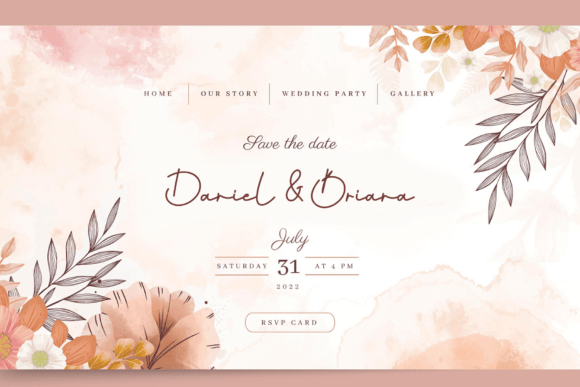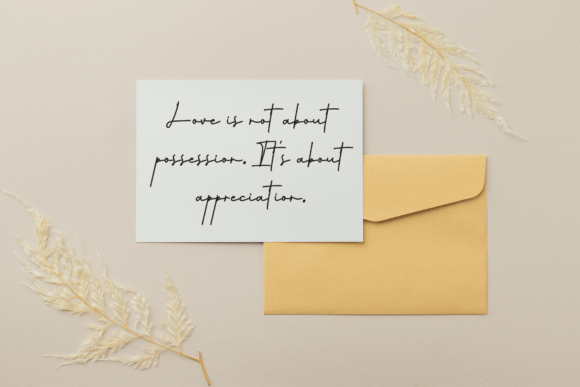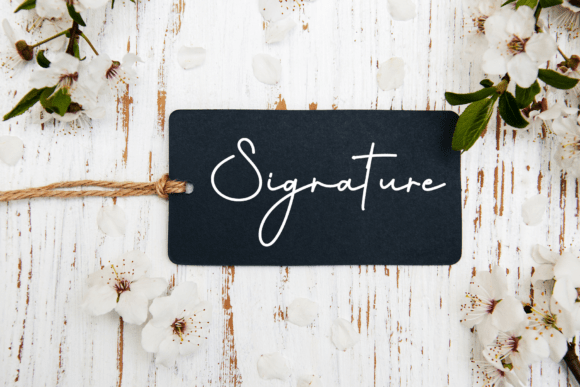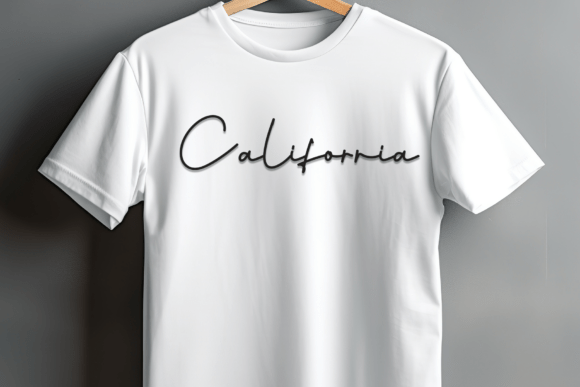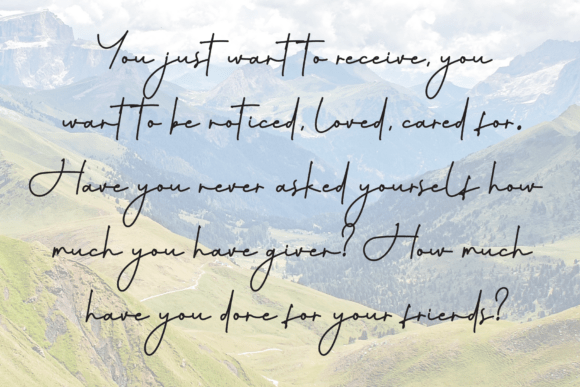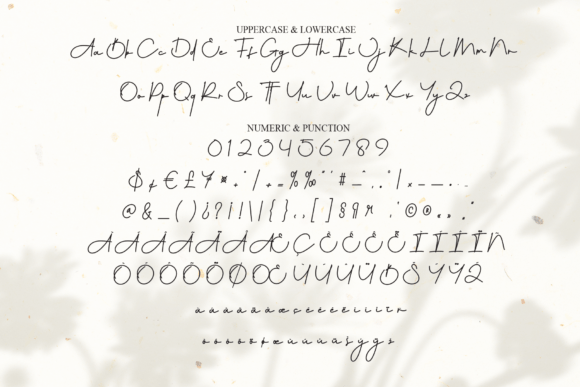
Introducing Angelina Font: The Epitome of Elegance and Sophistication
In the world of typography, few fonts manage to convey the essence of modern calligraphy as effortlessly as Angelina. This sleek and graceful handwritten script font is a masterpiece of design, boasting flowing lines, long elegant strokes, and a signature-style underline that exudes sophistication and charm. Whether you’re a designer looking to elevate your branding, a crafter seeking to add a touch of refinement to your wedding stationery, or simply someone who appreciates the beauty of well-crafted typography, Angelina is sure to captivate.
The Characteristics of Angelina Font
Angelina’s design is characterized by its fluid, cursive strokes that seem to dance across the page. The font’s long, elegant lines create a sense of movement and flow, imbuing any text with a sense of dynamism and energy. The signature-style underline adds an extra touch of sophistication, lending an air of refinement and luxury to any design. With its clean lines, balanced proportions, and exquisite attention to detail, Angelina is the perfect choice for anyone seeking to add a touch of elegance to their project.
One of the key benefits of Angelina is its versatility. This beautiful font is suitable for a wide range of applications, from logos and branding to wedding stationery, personal quotes, and more. Its refined yet approachable personality makes it an excellent choice for designers seeking to create a lasting impression. Whether you’re looking to create a luxurious brand identity, a romantic wedding invitation, or a simple yet elegant quote, Angelina is the perfect tool for the job.
Why Designers and Crafters Love Angelina
So, why has Angelina become a favorite among designers and crafters? For starters, its unique blend of elegance and approachability makes it an excellent choice for a wide range of projects. Additionally, the font’s versatility means that it can be used in a variety of contexts, from digital designs to print materials. Perhaps most importantly, however, is the fact that Angelina is a beautiful font that simply looks stunning. Its flowing lines, elegant strokes, and sophisticated underline make it a true masterpiece of typographic design.
Tips for Using Angelina Effectively
To get the most out of Angelina, it’s essential to use it effectively. Here are a few tips to keep in mind:
- Pair it with a simple background: Angelina’s elegant lines and sophisticated underline make it a font that can easily hold its own. To really make it shine, try pairing it with a simple background that won’t compete with the text.
- Use it sparingly: While Angelina is a beautiful font, it’s also a highly decorative one. To avoid overwhelming your design, try using it sparingly – for headings, titles, or key phrases.
- Experiment with different colors: Angelina looks stunning in a variety of colors, from classic black and white to bold brights and pastels. Don’t be afraid to experiment and find the perfect hue for your design.
In conclusion, Angelina is a truly exceptional font that is sure to captivate designers and crafters alike. Its sleek, graceful lines, elegant strokes, and sophisticated underline make it the perfect choice for anyone seeking to add a touch of refinement and luxury to their project. Whether you’re looking to create a luxurious brand identity, a romantic wedding invitation, or simply a beautiful quote, Angelina is the perfect tool for the job. So why wait? Discover the beauty of Angelina for yourself and elevate your designs to new heights.